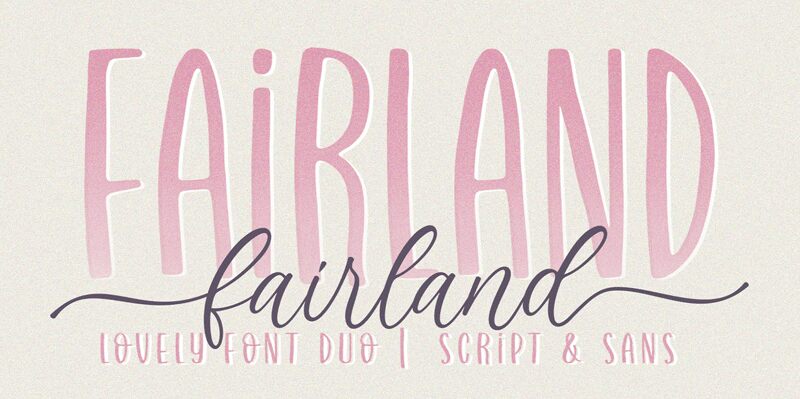
Fairland, a stunning calligraphy font created by Subectype & Orenari, exudes elegance and grace. Its semi-light weight and semi-condensed width make it perfect for a wide range of projects. From wedding invitations to elegant branding materials, Fairland adds a touch of sophistication to any design. Its flowing strokes and intricate details capture attention and create a unique visual experience. Whether you're designing luxurious stationery or creating artistic logos, Fairland is the ideal choice for those seeking refined beauty in their typography.
Fairland